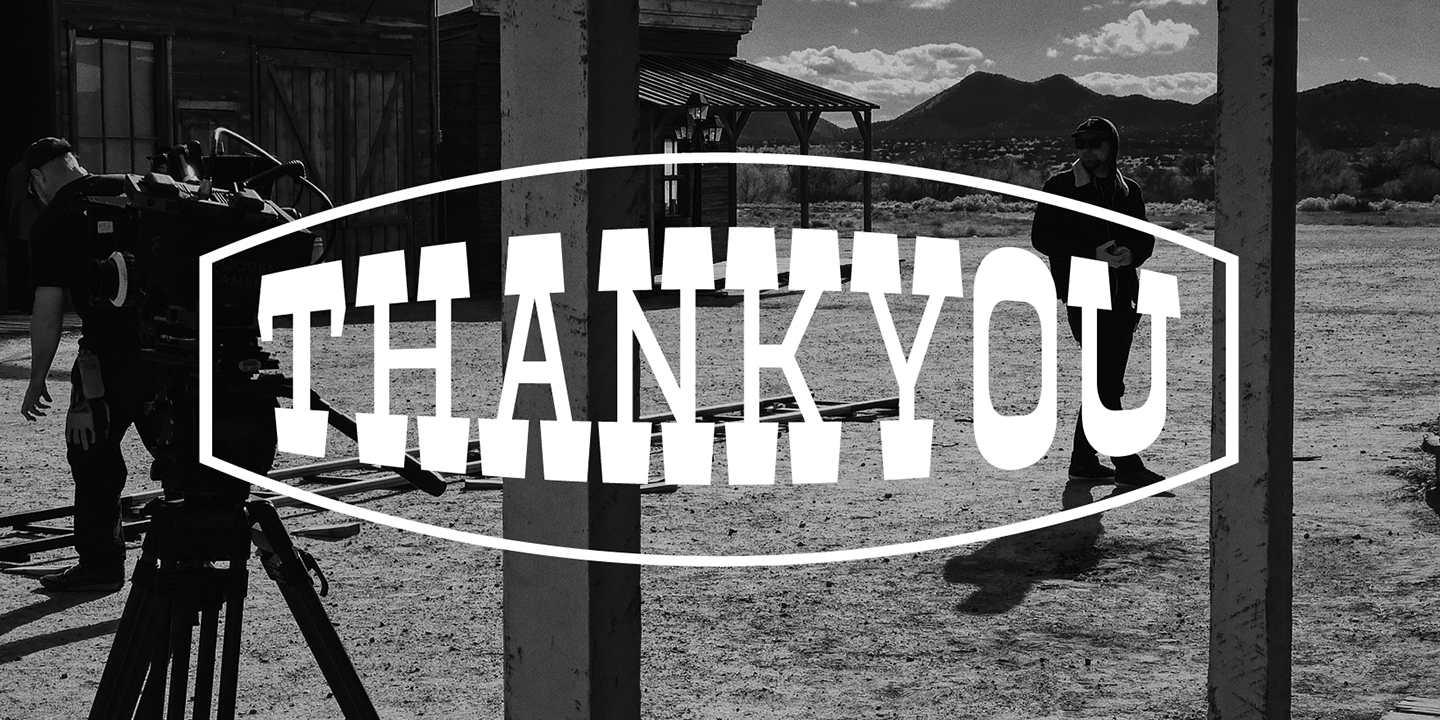
Masterson Free Download
Masterson Font Free Download
Masterson Font is perfect for various applications including distinguished law firm branding, executive corporate identities, prestigious university materials, high-end financial services, luxury real estate marketing, established business logos, professional consulting firms, heritage brand identities, premium service providers, and authoritative publication designs.
What makes Masterson Font so exciting is its commanding presence that instantly establishes credibility and professional authority in any application. This distinguished typeface features strong, classical letterforms with refined proportions and timeless elegance that convey decades of expertise and unwavering reliability. The font's authoritative character and established aesthetic make it ideal for brands that want to convey trust, expertise, and institutional strength to audiences who value experience, professionalism, and proven track records.
Masterson Font family includes multiple weights and styles: Light, Regular, Medium, Bold, Black, Condensed, Extended, Classic, and authoritatively crafted Italic variants. Each family member maintains the font's signature authority while offering different levels of visual hierarchy and stylistic flexibility for diverse professional and institutional applications.
The Masterson Font Free Download provides designers with access to an authoritative typeface that excels in professional services and institutional markets. Whether you're creating established firm identities, designing executive marketing materials, or developing prestigious digital platforms, this font delivers the commanding aesthetic needed to establish immediate credibility with decision-makers. Its classical styling and professional essence make it particularly effective for legal firms, financial institutions, and established consulting practices.
Typography specialists will recognize the masterful balance between authority and accessibility in Masterson Font's construction. The font features precisely engineered letterforms with classical proportions, optimized kerning for professional documents, and carefully calibrated spacing that ensures exceptional readability while maintaining its commanding character. From legal briefs to executive presentations, this typeface maintains its authority and professional sophistication across all business contexts.
For professional web designers, Masterson Font provides outstanding performance in corporate digital environments and institutional platforms. The font's technical specifications are optimized for professional applications while preserving the strong, authoritative edges that define its commanding character. Its versatility makes it suitable for both comprehensive business documentation and high-level executive communications.
Creative professionals working in law, finance, consulting, and established institutions will find Masterson Font to be an essential tool for projects requiring authoritative visual communication. The font's ability to convey expertise, reliability, and institutional strength makes it invaluable for brands targeting professional decision-makers and established business demographics.
Design agencies specializing in professional services appreciate Masterson Font's versatility in creating memorable authoritative identities.